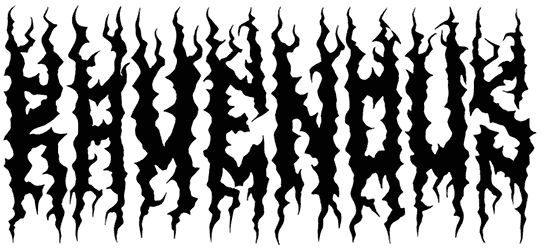
Ravenous Font
Take a deep breath and try not to focus on the negative energy radiating from Ravenous. That’s what it’s made for, and there’s nothing you can do to make it better. People actually dig that kind of dark theme. You’re a designer, you should know all about it.
So before the protection spell wears off, and its satanic mode starts to affect you too, you’d better get this death metal font downloaded and added to your death metal posters, horror books, etc.